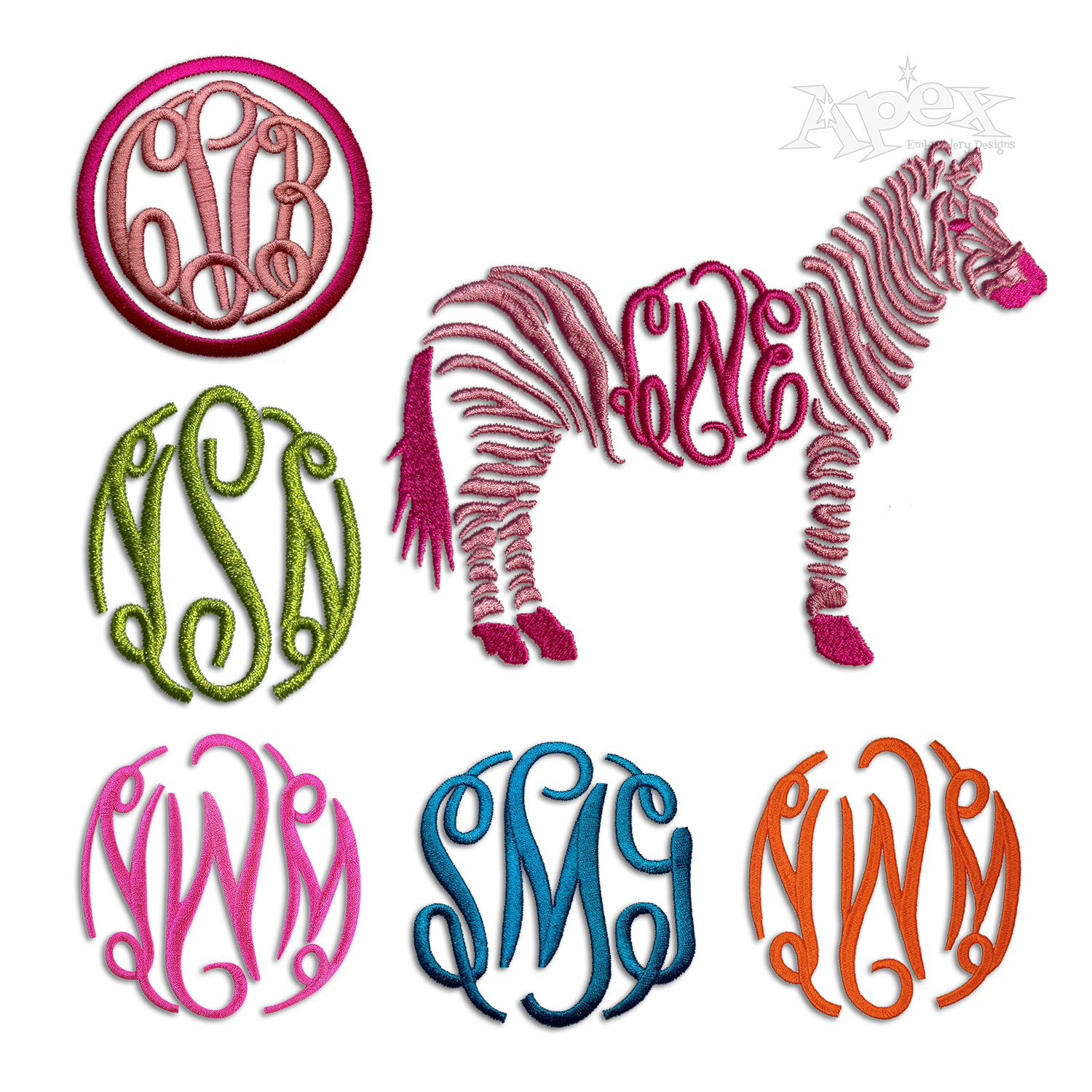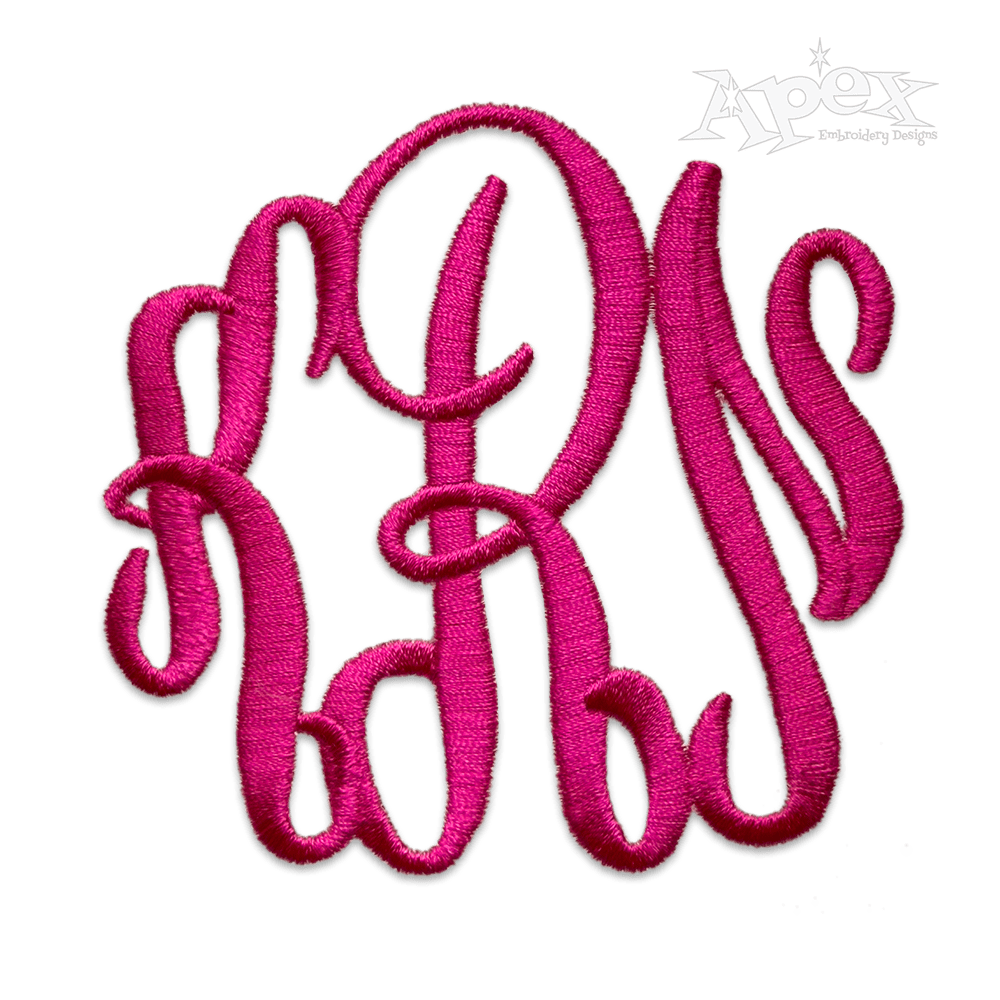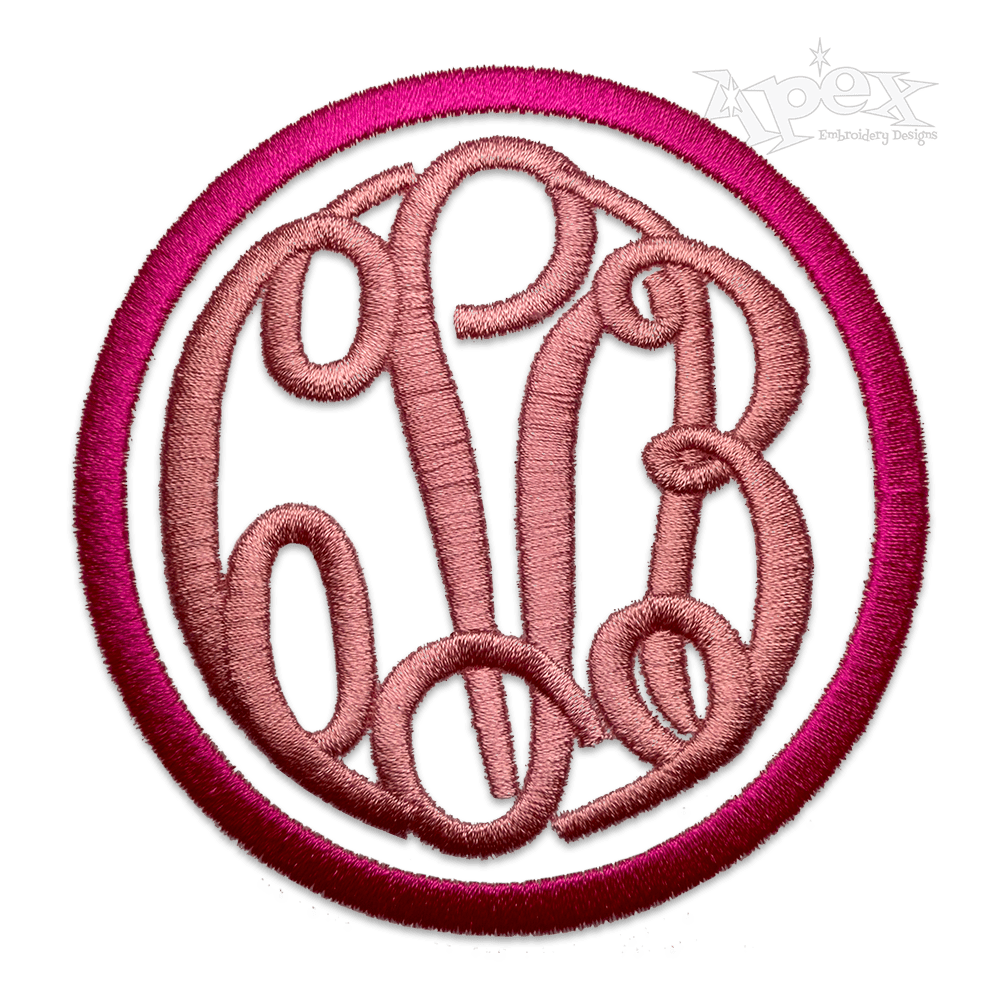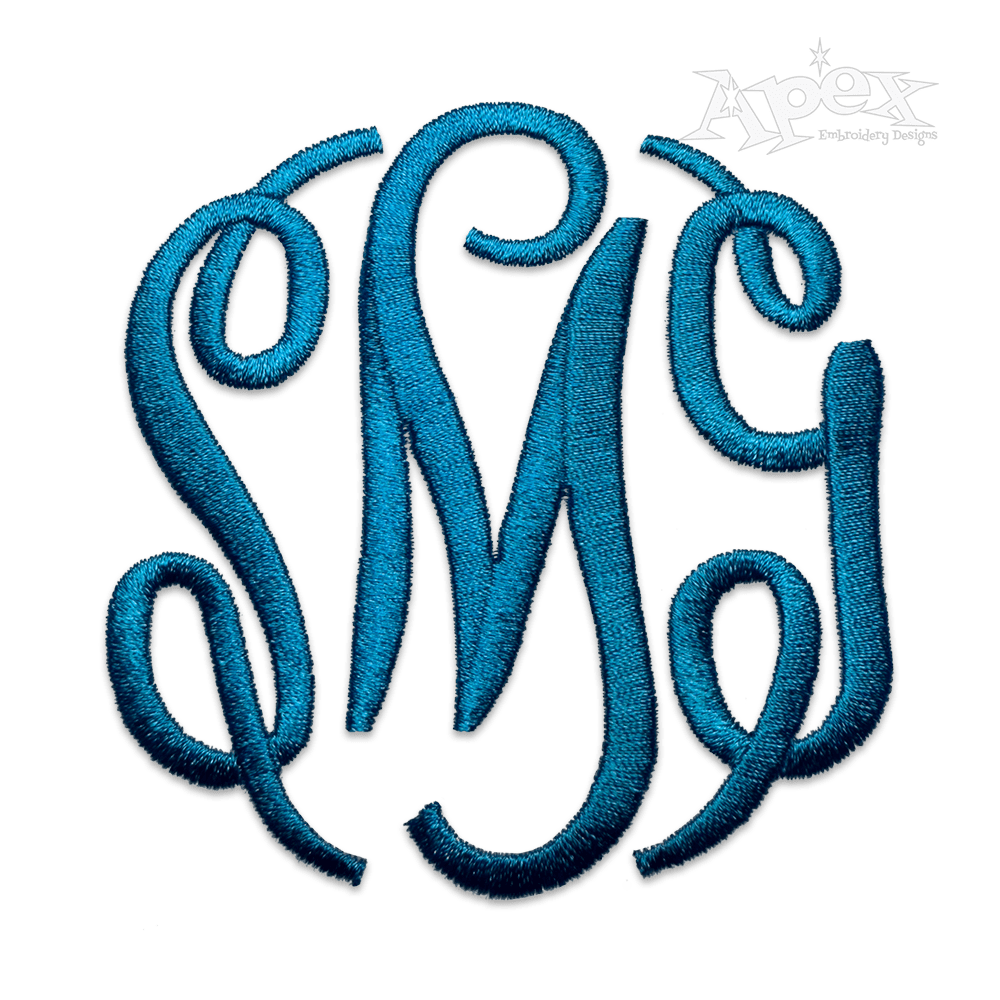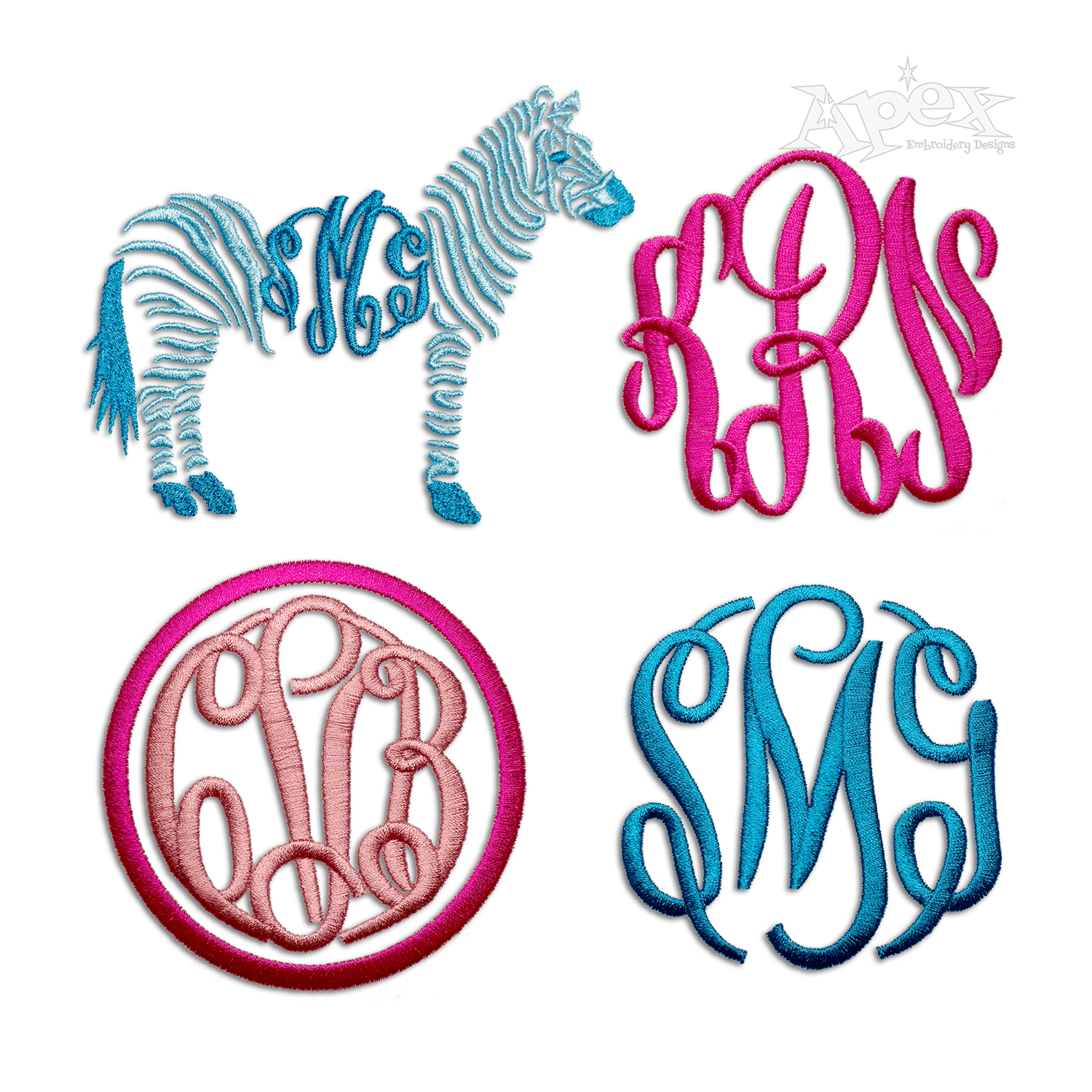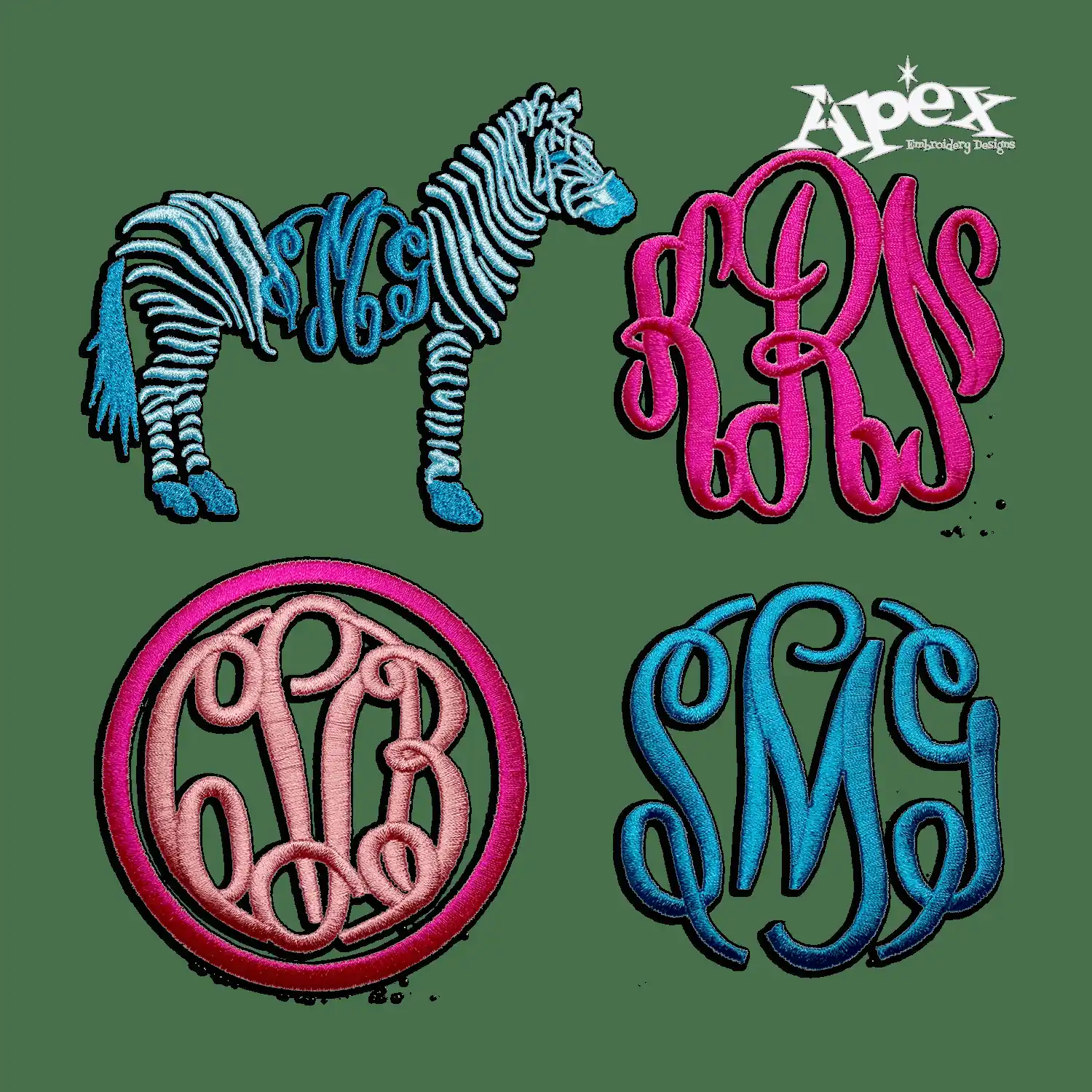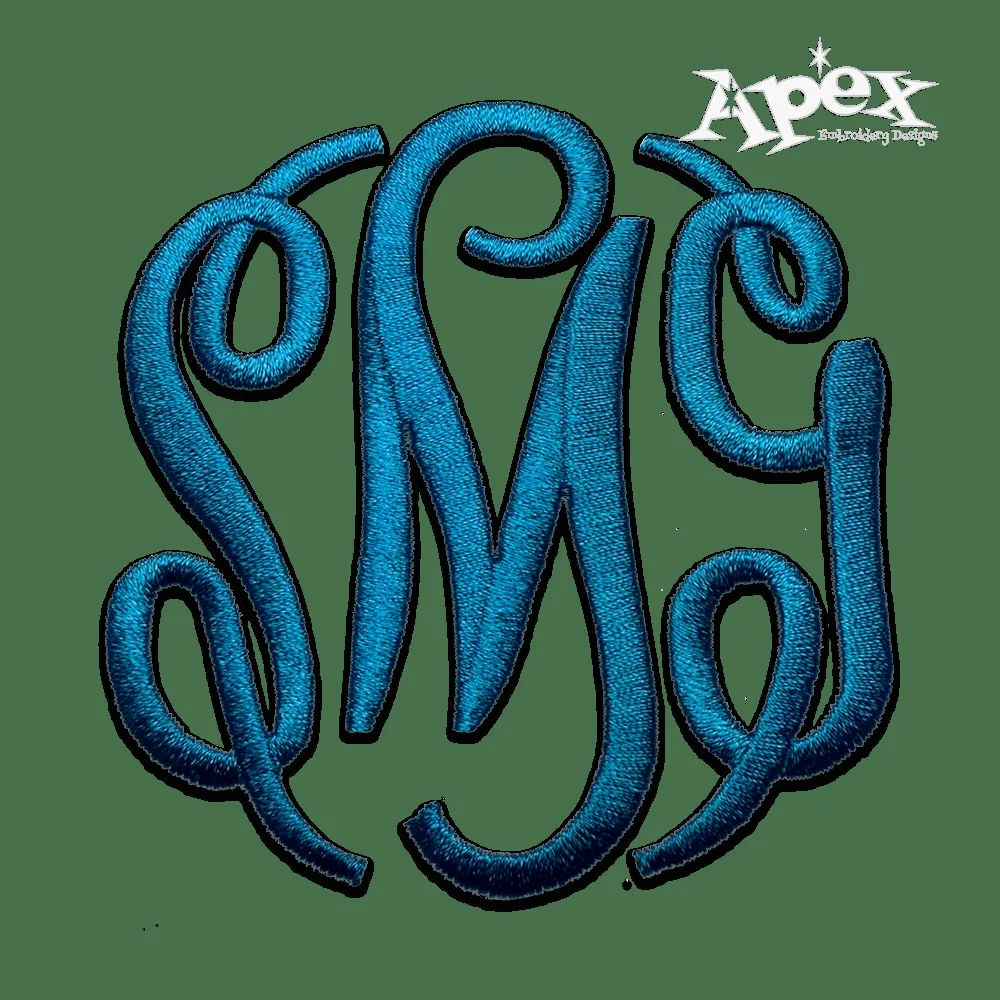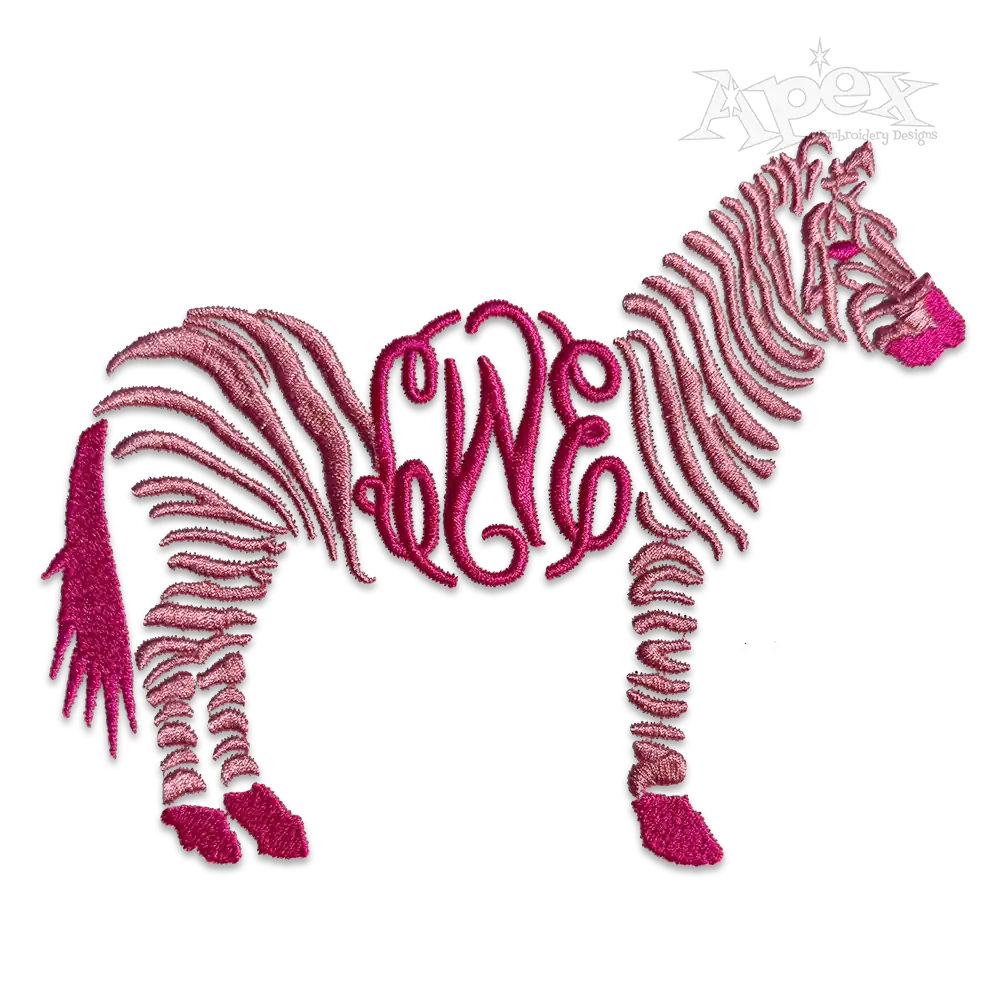
Apex Round Embroidery Font
There is an enduring nobility in the traditional circular monogram?an unmistakable stamp of bespoke luxury that has graced fine estate linens, tailored travel gear, and personalized heirlooms for generations. When digitizing the Apex Round Monogram, our studio sought to capture that pristine balance between geometric discipline and ornamental softness. As the needle traverses each curve, it yields a unified, medallion-like silhouette where three distinct characters merge into a single harmonious seal. It is a design conceived for those who appreciate understated distinction, lending an effortless pedigree to everything it touches.
The Apex Round Monogram is engineered as a dedicated three-letter circular monogram system, featuring corresponding left, center, and right characters designed to lock together into a perfect disc. The collection is offered across two distinct scale groupings to suit both intimate personalization and expansive statement embroidery:
Project Ideas for Apex Round Monogram
The self-contained, balanced silhouette of this round monogram makes it one of the most versatile alphabets in an embroidery artisan’s repertoire. Consider pairing it with these timeless textiles:
- Luxury Table Linens: Stitch matching 2-inch or 3-inch insignias on crisp hemstitch linen cocktail napkins and placemats for bespoke dining.
- Heirloom Bedding: Anchor the center flange of king pillow shams or the turn-down edge of a master duvet cover using the dramatic 6-inch or 8-inch high scale.
- Resort & Bridal Wear: Position the 3-inch or 4-inch monogram on the lapel or back yoke of washed silk or plush terry spa robes for wedding party gifting.
- Rugged Canvas Totes: Transform heavy cotton duck weekend bags and boat totes with a centered 5-inch monogram in contrasting marine or saddle thread.
- Tailored Apparel: Add a subtle, personalized accent to men’s oxford cuffs, bespoke golf pullovers, or structured fleece vests.
Because the outer edges of the left and right characters form a continuous circular arc, this font frames itself naturally against open fabric surfaces:
- Corner Diagonal: For dinner napkins and pocket squares, align the center letter along the true 45-degree diagonal, set 1.5 to 2 inches up from the hemmed point.
- Center Flange & Pillows: On decorative throw pillows and bed linens, center the monogram precisely across both the vertical and horizontal axes of the primary face.
- Left Chest & Pockets: Center the arrangement 7 to 9 inches down from the shoulder seam and midway between the placket and side seam on tailored shirts or outerwear.
- Tote Bag Faces: Position the large monogram approximately one-third of the distance down from the top edge to create an intentional, designer-grade focal point.
Apex Round Monogram Craft & Letterform Details
Digitizing a true circular monogram requires far more than simply bending standard letters along a curve. Each character in this collection has been sculpted individually so that the outer perimeter follows a smooth, unbroken circular boundary, while the inner strokes maintain crisp vertical posture and optical weight. Our digitizers have paid particular attention to stitch pathing and satin tension: stitch angles radiate outward along the curves to catch and reflect natural light, while reinforced underlying foundations ensure the edges remain razor-sharp without pulling or scalloping the fabric. The result is a dense, buttery satin finish that feels smooth to the touch and commands attention through pure, unadorned craftsmanship.